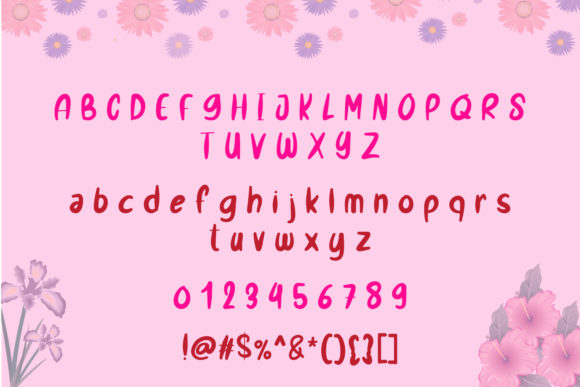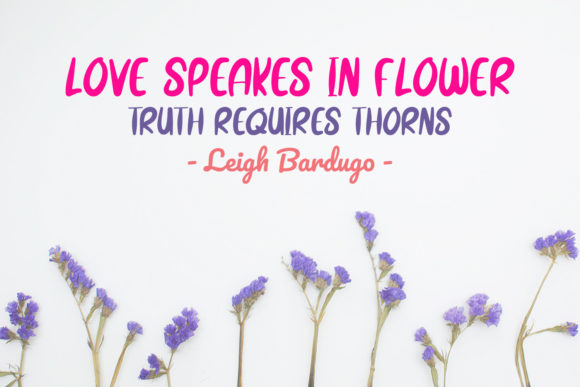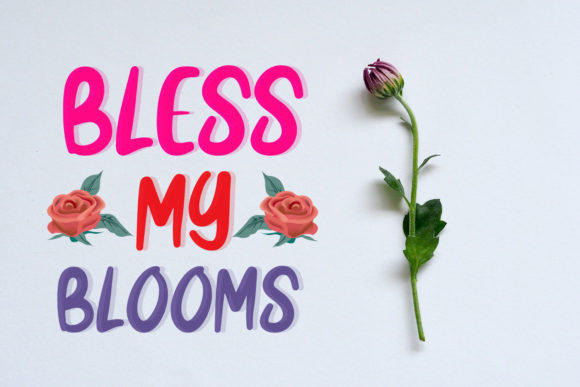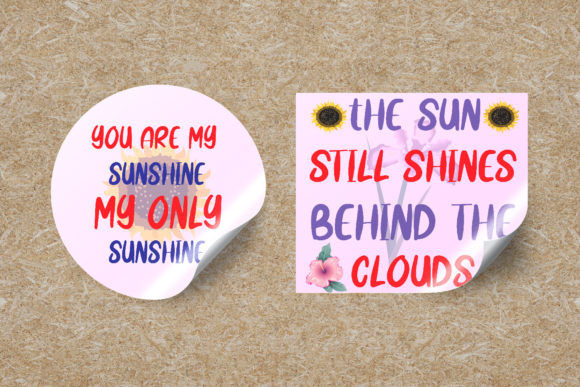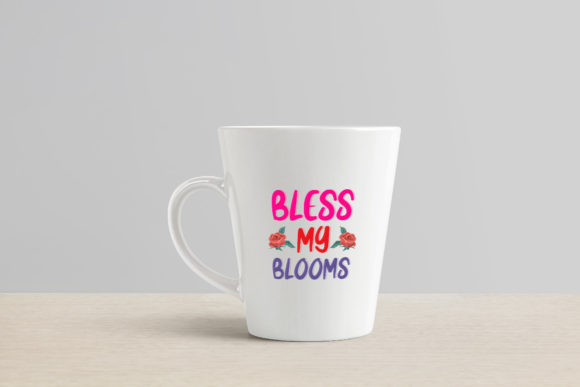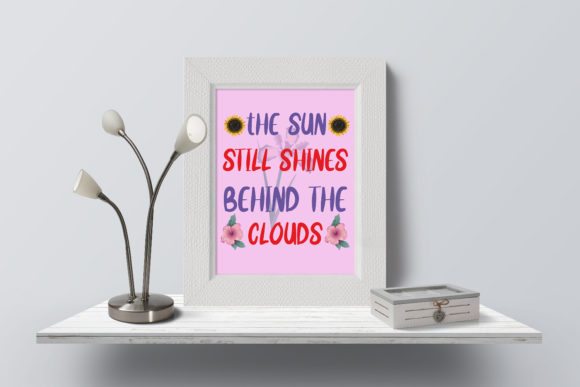
Cutter Font: The Jolly and Readable Paint Brushed Handwritten Font
Are you tired of using the same old fonts in your designs? Look no further than the Cutter Font, a jolly and readable paint brushed handwritten font that is sure to add a touch of personality to your projects. With its natural and unique style, Cutter Font is incredibly fitting to a large pool of designs, and the only limit is your imagination!
What is Cutter Font?
Cutter Font is a type of font that is designed to mimic the look of hand-painted letters. It has a playful and whimsical feel, making it perfect for designs that require a personal touch. The font is characterized by its bold, expressive brushstrokes and irregular letterforms, which give it a unique and eye-catching appearance.
Features of Cutter Font
So, what makes Cutter Font so special? Here are just a few of its key features:
- Natural and unique style: Cutter Font has a one-of-a-kind look that is sure to make your designs stand out.
- Jolly and readable: Despite its playful appearance, Cutter Font is incredibly easy to read, making it perfect for use in a variety of design applications.
- Paint brushed effect: The font’s paint brushed effect gives it a textured, hand-painted look that adds a touch of warmth and personality to your designs.
- Versatile: Cutter Font can be used in a wide range of designs, from craft projects to digital designs, and everything in between.
Uses for Cutter Font
So, what can you use Cutter Font for? The possibilities are endless! Here are just a few ideas to get you started:
- Craft projects: Cutter Font is perfect for use in craft projects, such as scrapbooking, card making, and DIY signs.
- Digital designs: The font can also be used in digital designs, such as social media graphics, blog posts, and website headers.
- Branding and packaging: Cutter Font’s unique and eye-catching appearance makes it a great choice for use in branding and packaging design.
- Sign making: The font’s bold, expressive brushstrokes make it perfect for use in sign making, whether you’re creating a sign for a business or a personal project.
Tips for Using Cutter Font
Here are a few tips for getting the most out of Cutter Font:
- Experiment with different colors: Cutter Font looks great in a variety of colors, so don’t be afraid to experiment and find the perfect hue for your design.
- Play with font sizes: The font’s bold, expressive brushstrokes make it perfect for use in a variety of font sizes, from large headings to smaller body text.
- Combine with other fonts: Cutter Font pairs well with a variety of other fonts, so feel free to get creative and combine it with other fonts to create a unique look.
In conclusion, Cutter Font is a jolly and readable paint brushed handwritten font that is sure to add a touch of personality to your designs. With its natural and unique style, Cutter Font is incredibly fitting to a large pool of designs, and the only limit is your imagination! Whether you’re a designer, crafter, or DIY enthusiast, Cutter Font is a great choice for any project that requires a personal touch.